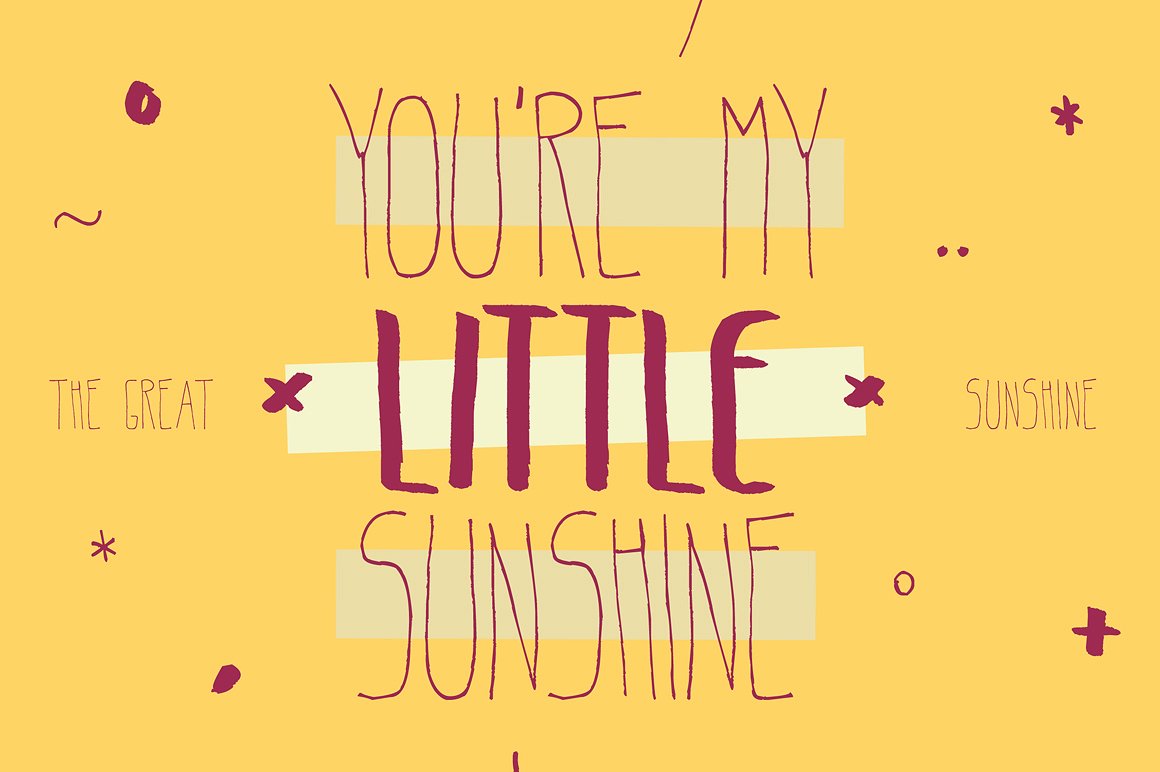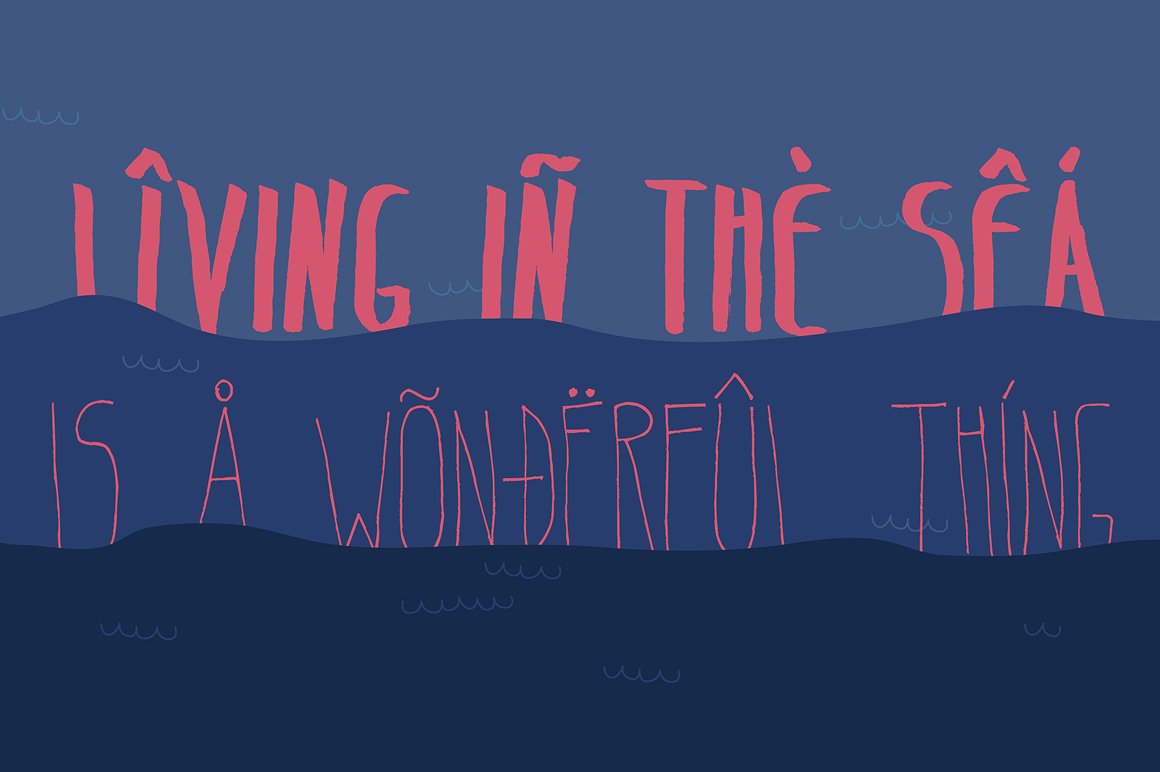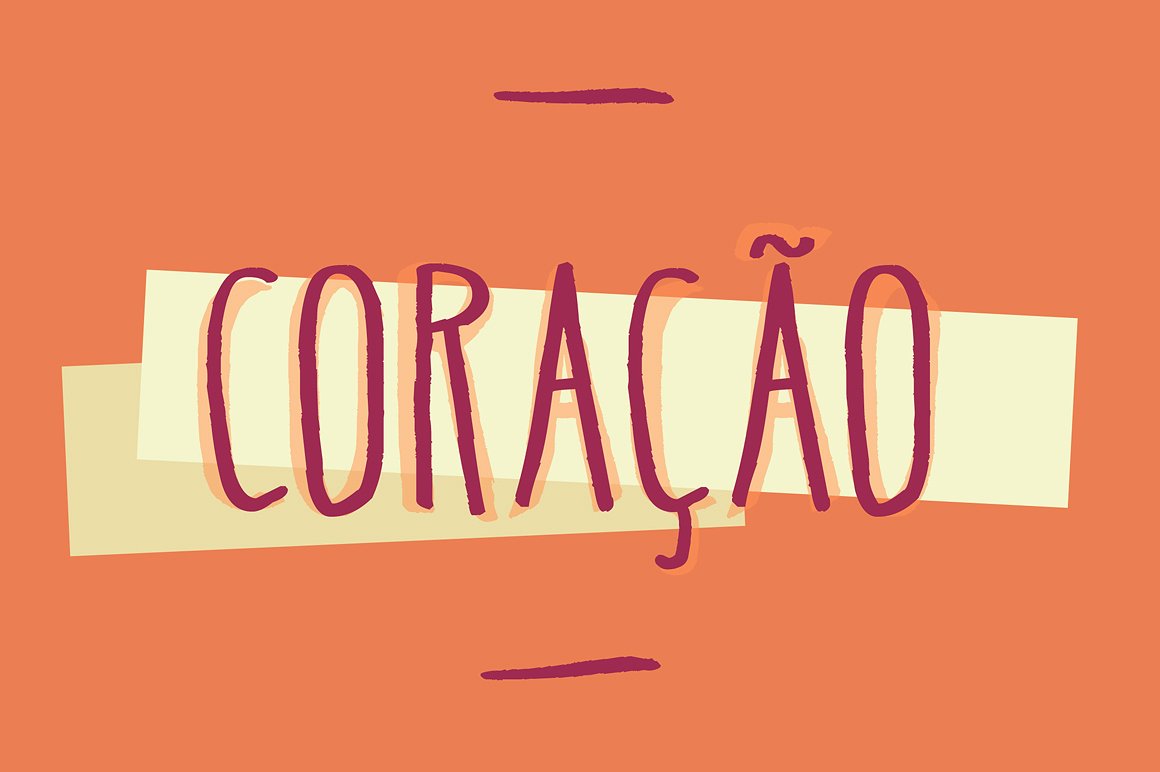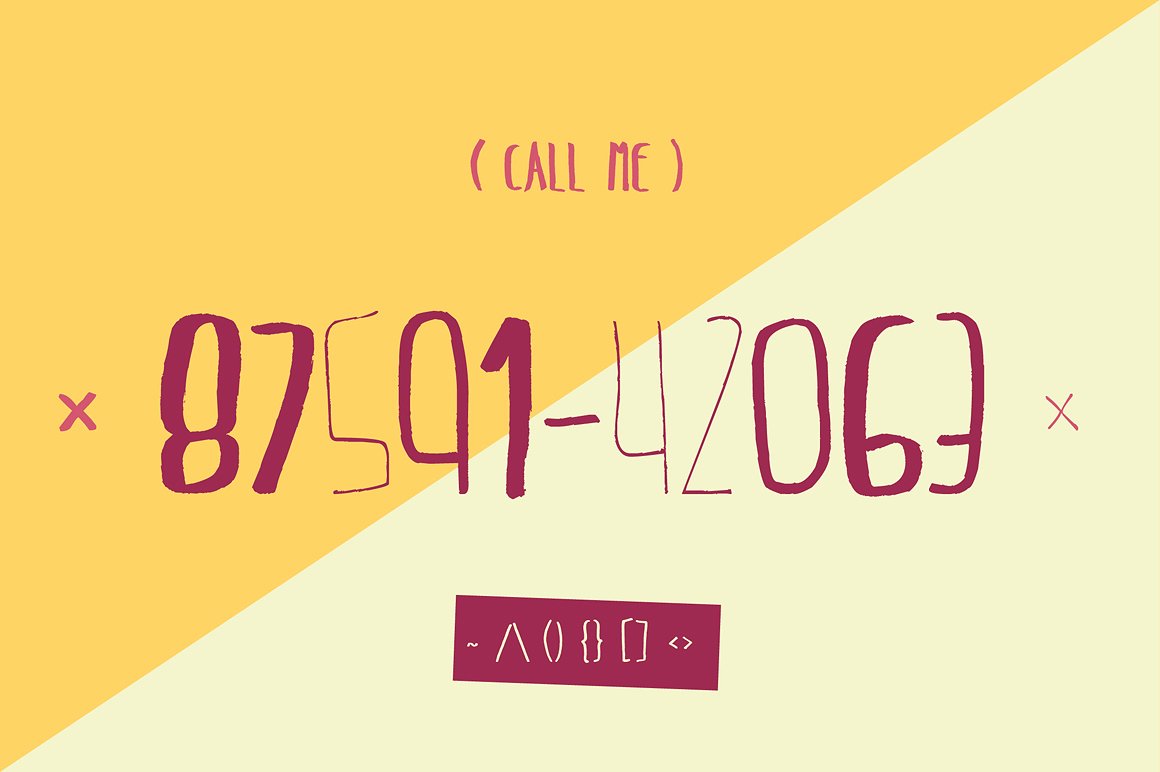
Belta Font
About Belta Font
Belta is a stunning and fun all-caps handwritten font, perfect for use in displays and headlines. This font is handcrafted and works well in a wide range of designs because it allows an informal and relaxed look.